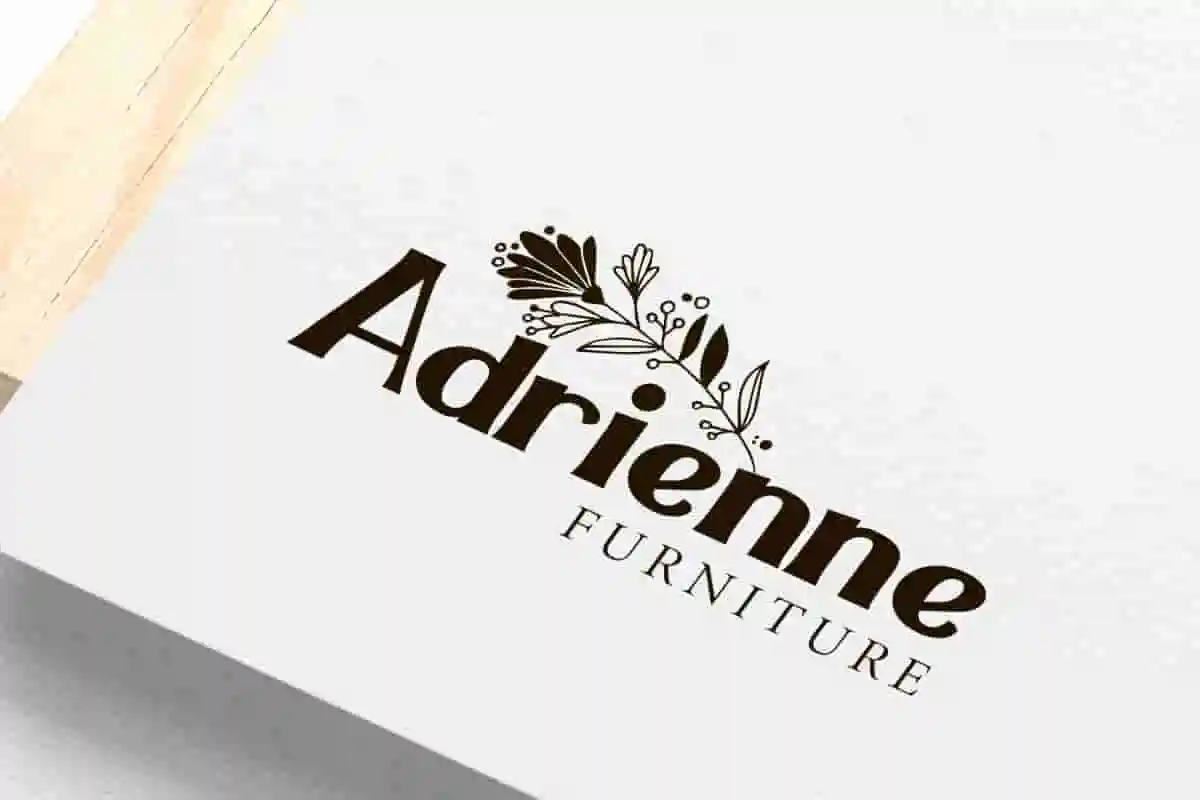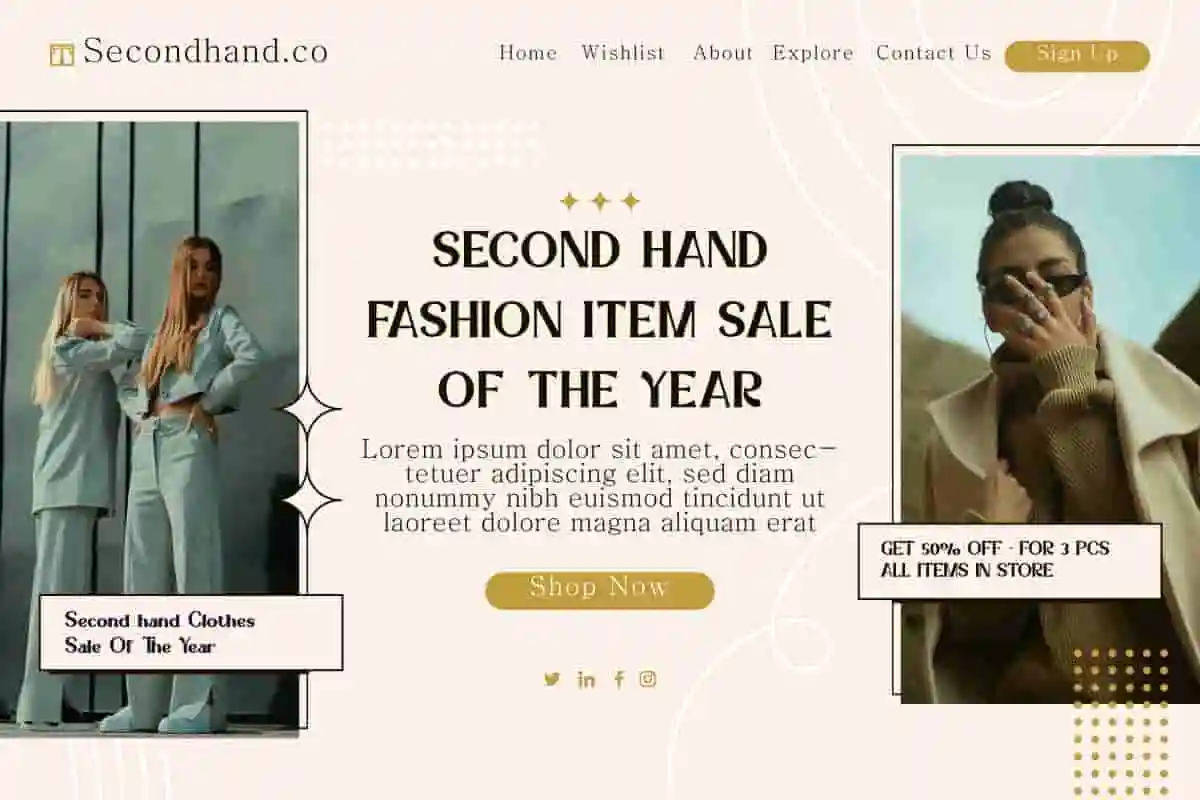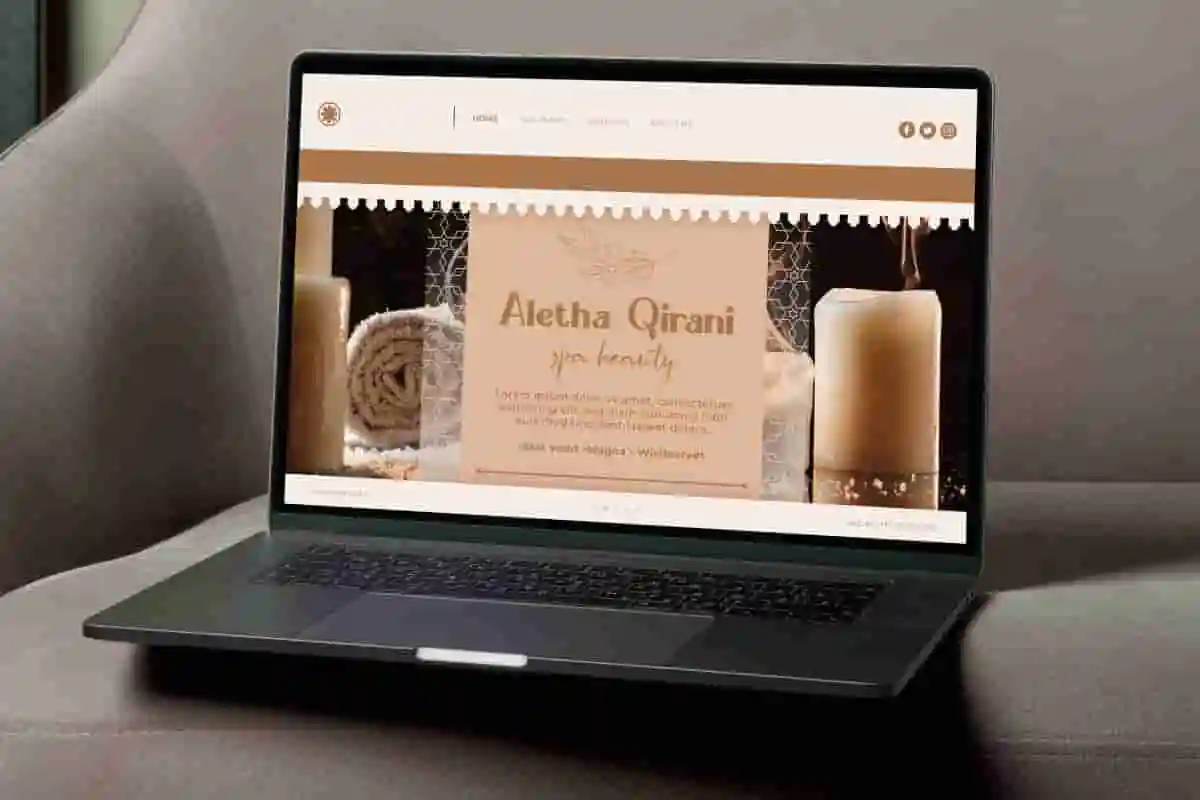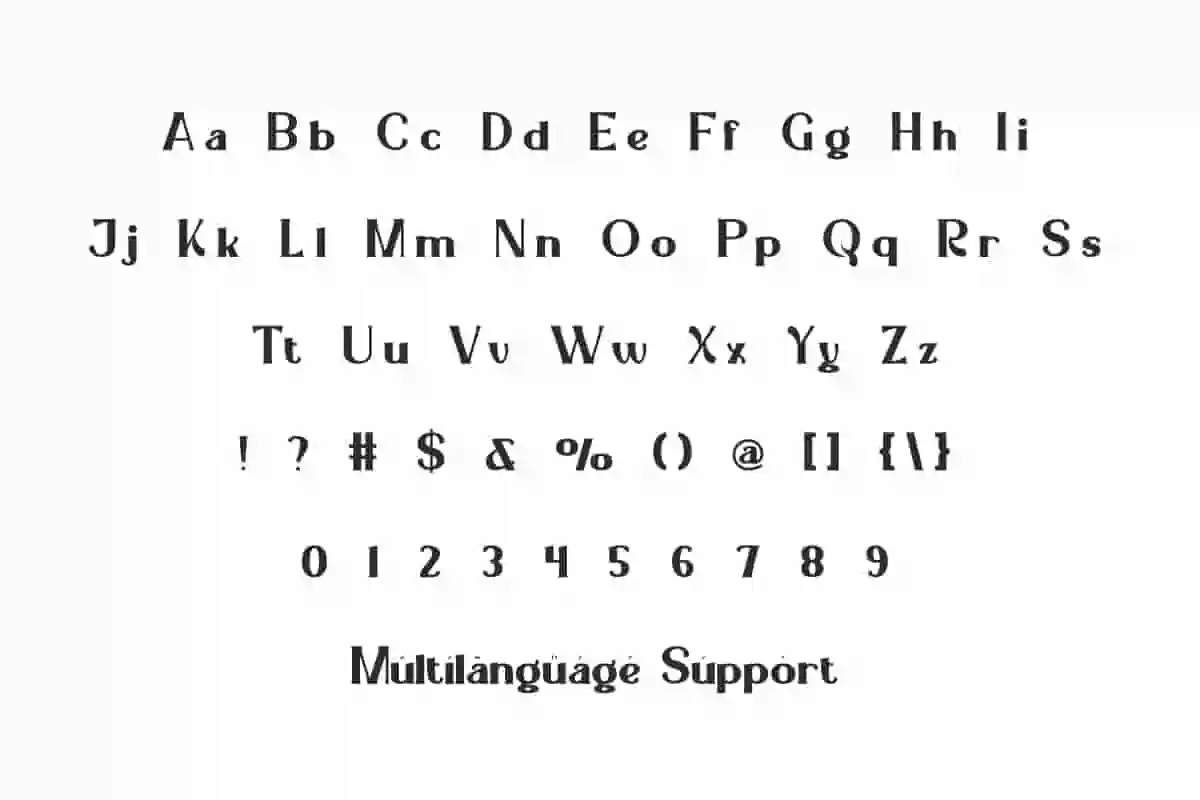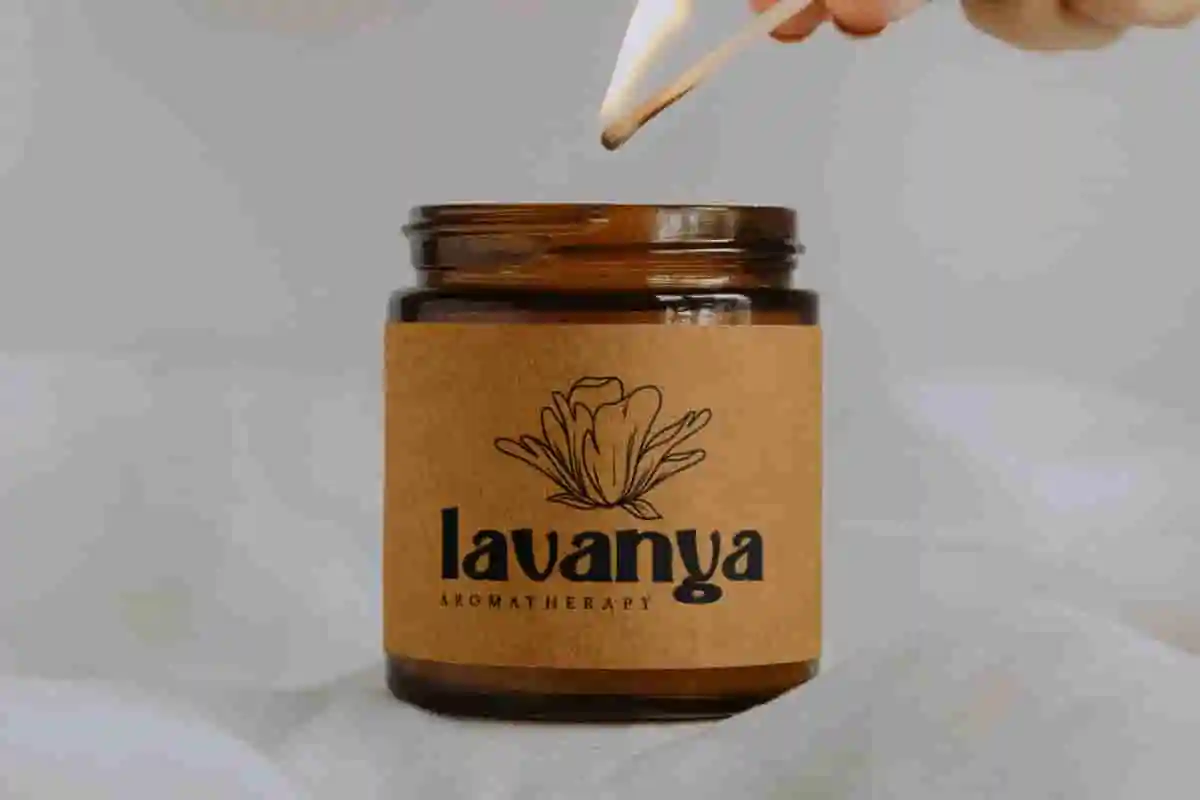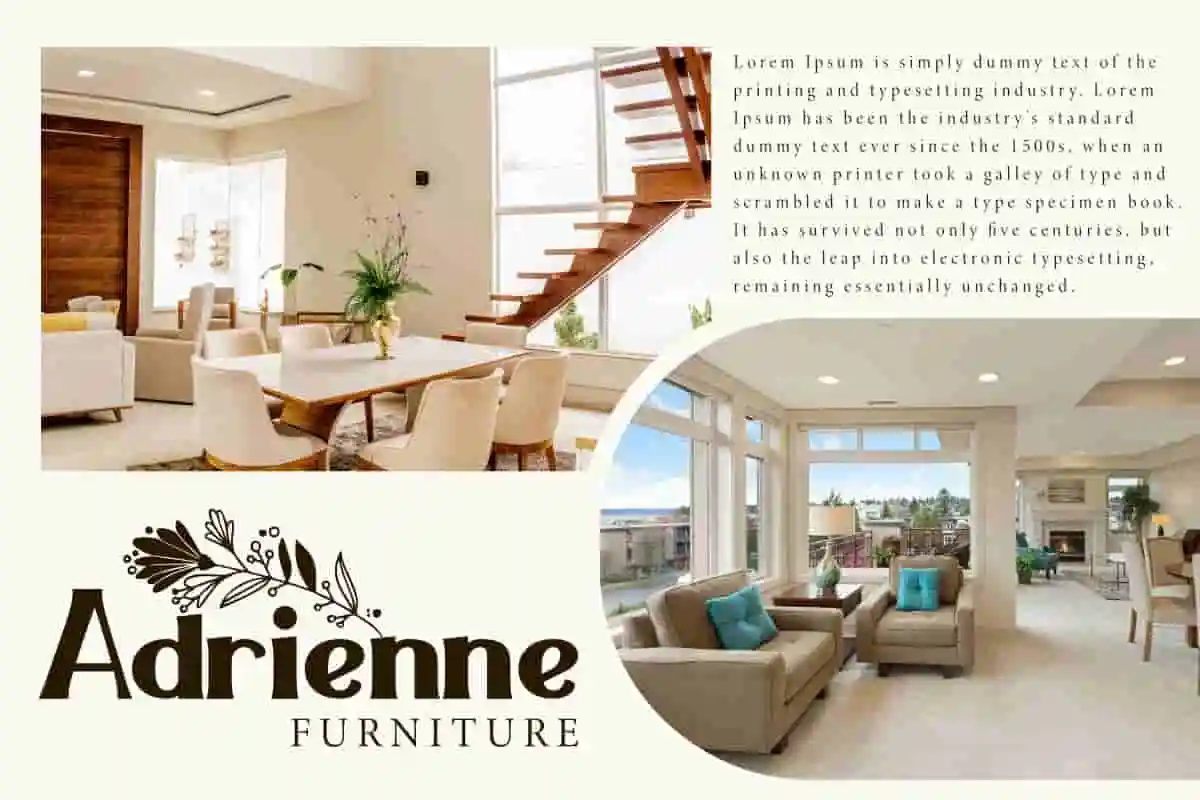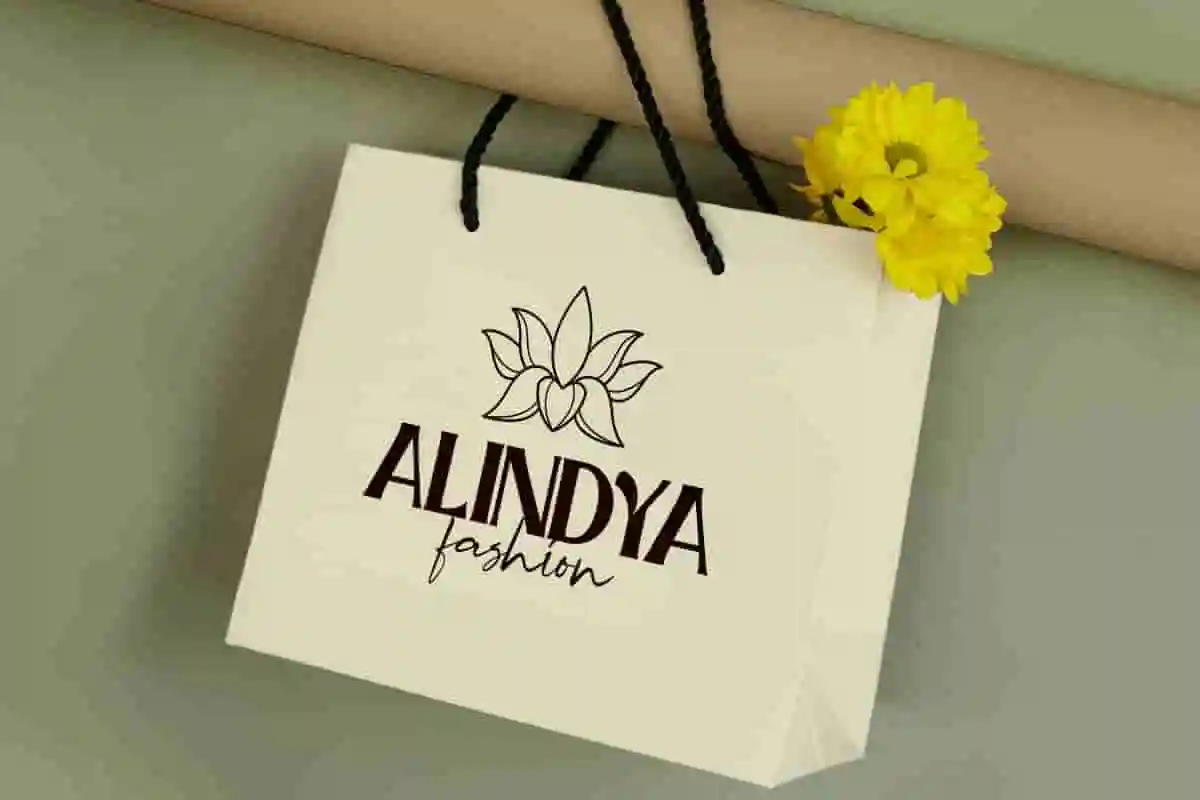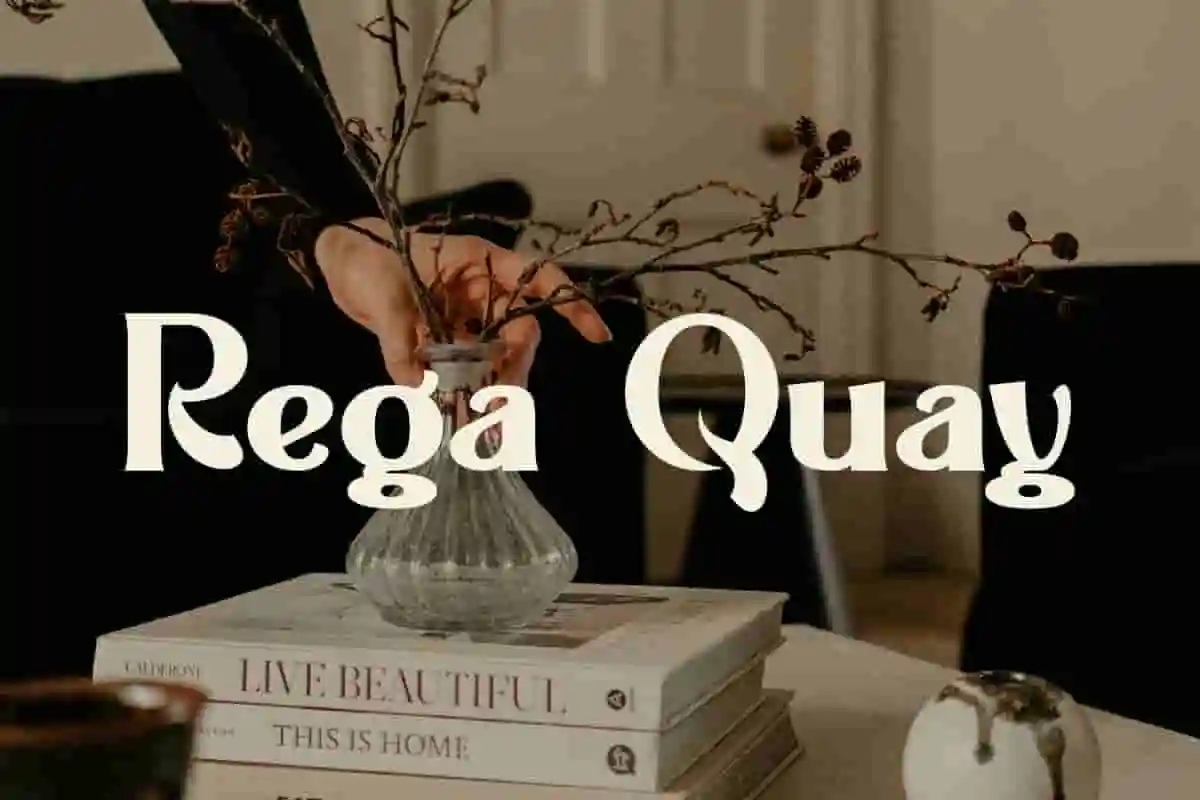
Rega Quay Font is an impressive trendy bold display font that will catch your eye. It brings a cool, majestic look that makes it even more fun.
Rega Quay Font is a modern bold display font, with gentle curves that give a soft, warm, and organic feel. This style is different from the others, making this classy font very unique and suitable for blogs, bussines card, card design, headers, headlines, label, logos, mockup, printed materials, poster, product packaging, quotes, sticker, template, title, website, and more.
Rega Quay Font contains a complete set of basic Uppercase and Lowercase characters, Numbers, Punctuation, and Symbols. This font gives users flexibility and creativity in terms of style and appearance of text and helps to realize effective and attractive communication. Perfect for all your creative ideas, such as advertising, digital marketing, fashion, fragrance brand, home furniture, spa salon, and others.